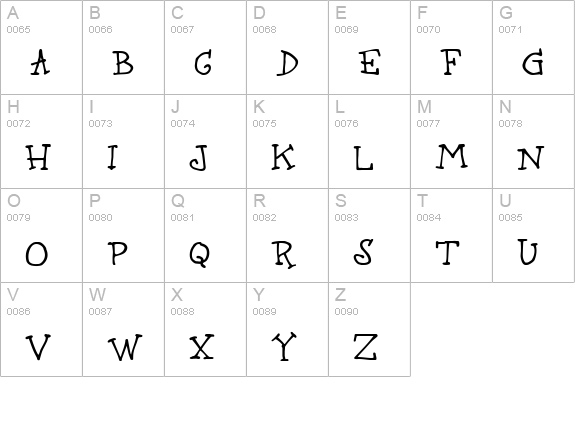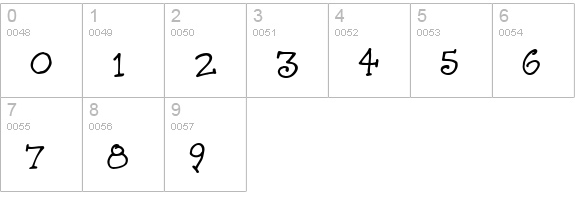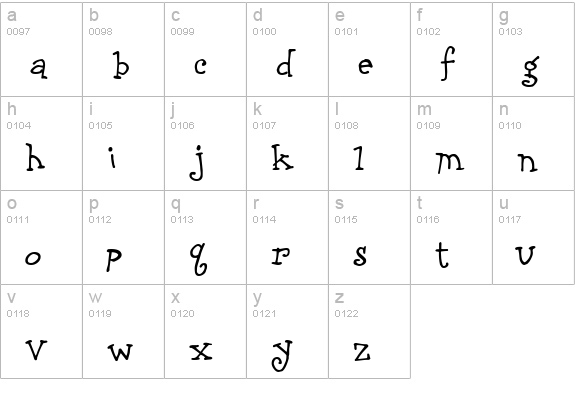
CK Hopscotch Font Details
CK Hopscotch is a charming and playful font that exudes a sense of whimsy and creativity. With its unique hand-drawn style and quirky letterforms, this font is perfect for adding a fun and lighthearted touch to your designs. Whether you're working on a children's book, a party invitation, or a playful branding project, CK Hopscotch will bring a sense of joy and spontaneity to your work. Best of all, CK Hopscotch is available for free download at FontsMarket.com. So go ahead and add this delightful font to your collection today and let your creativity soar!